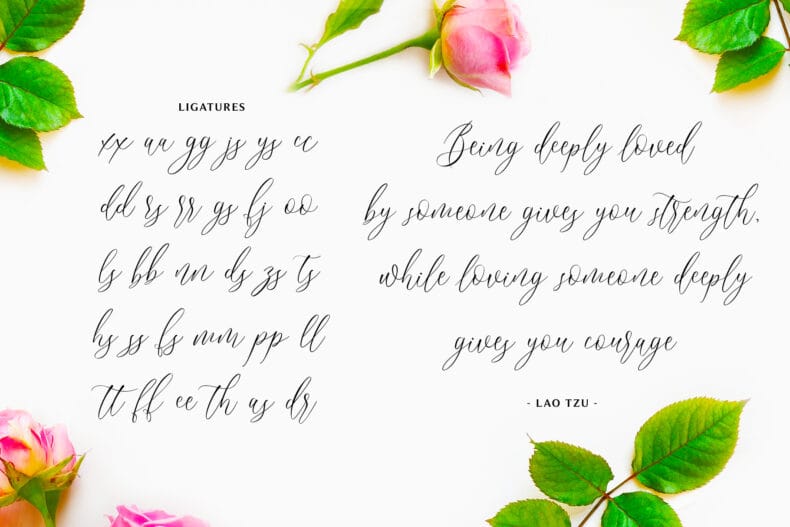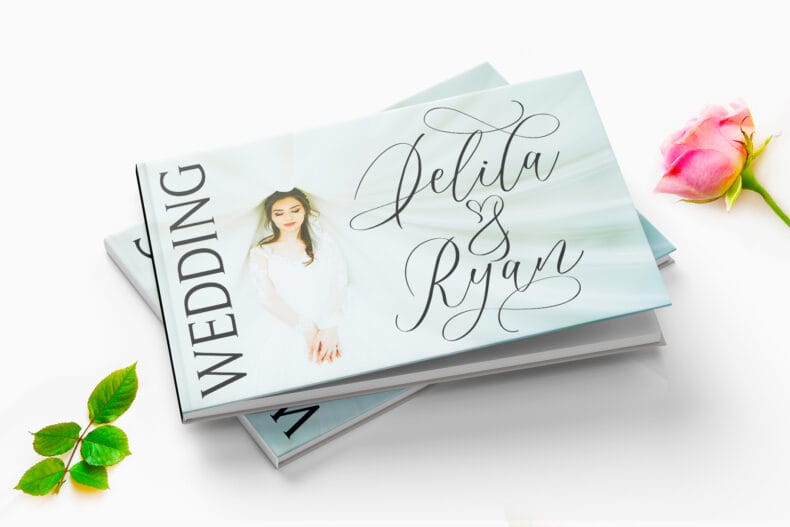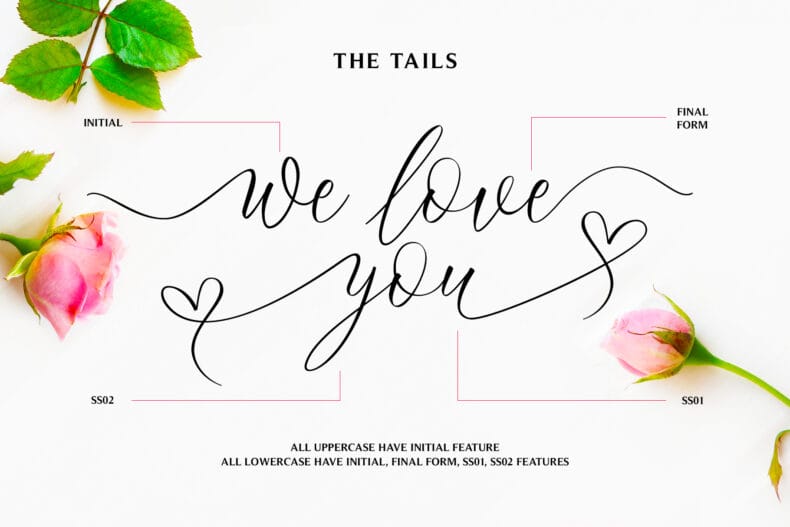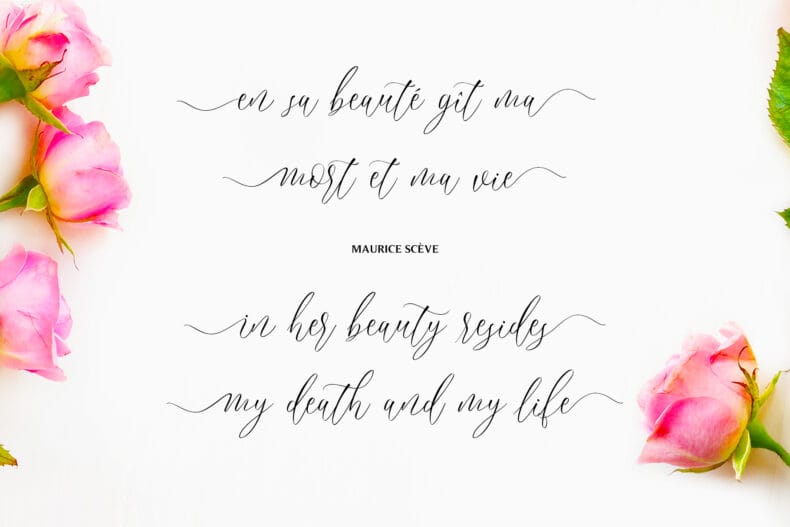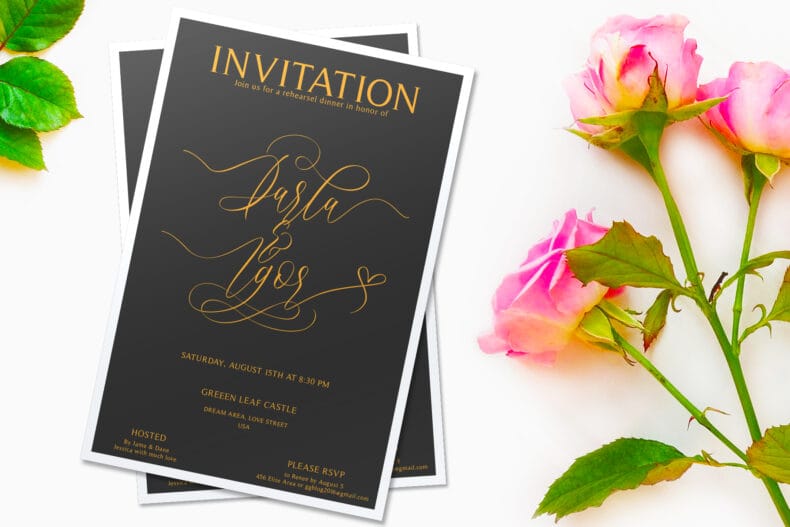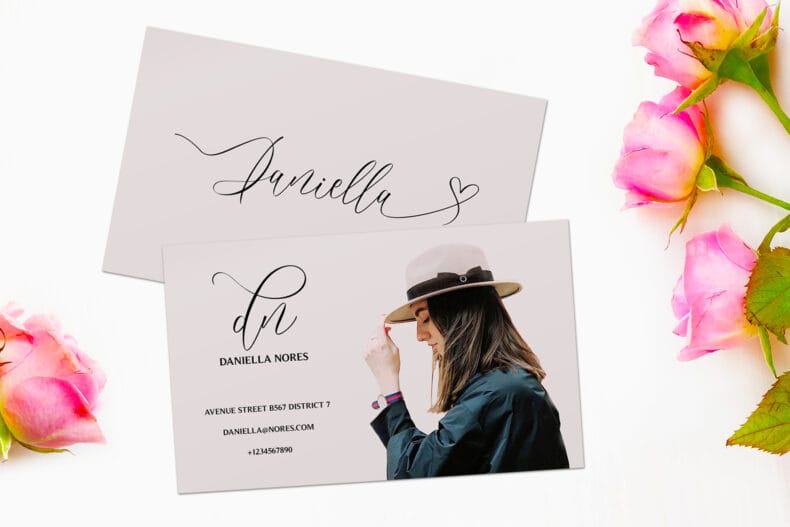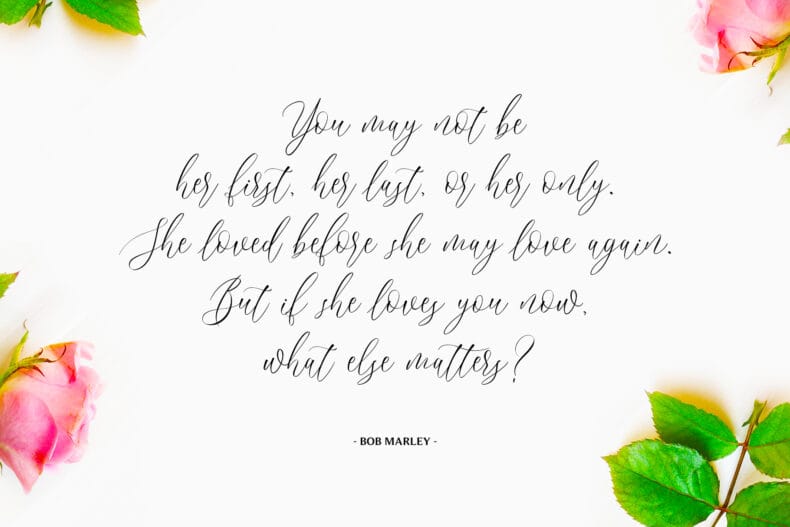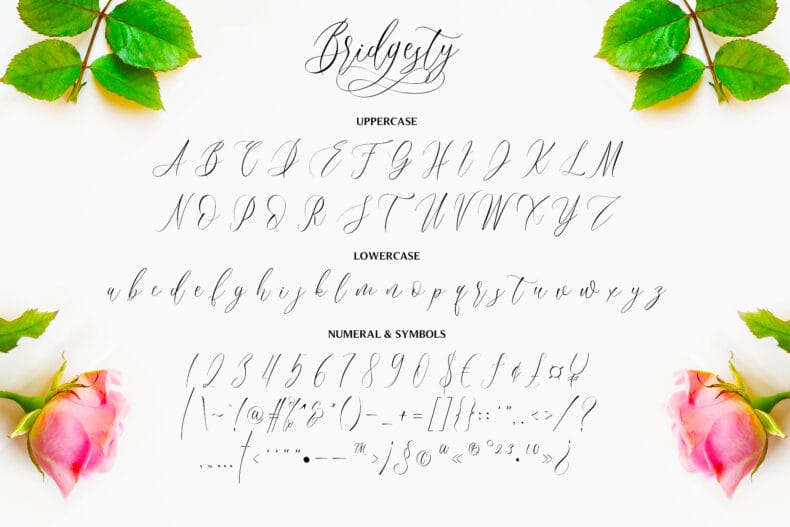
Bridgesty, Beautiful Modern Calligraphy
Bridgesty, a lovely calligraphy font with romantic taste. It’s bouncy, elegant, and gorgeous script font that very recommended to be your wedding font. Bridgesty comes with ligature, contextual alternates, initial & final form features, stylistic set, swash, and multilingual that already PUA encoded.